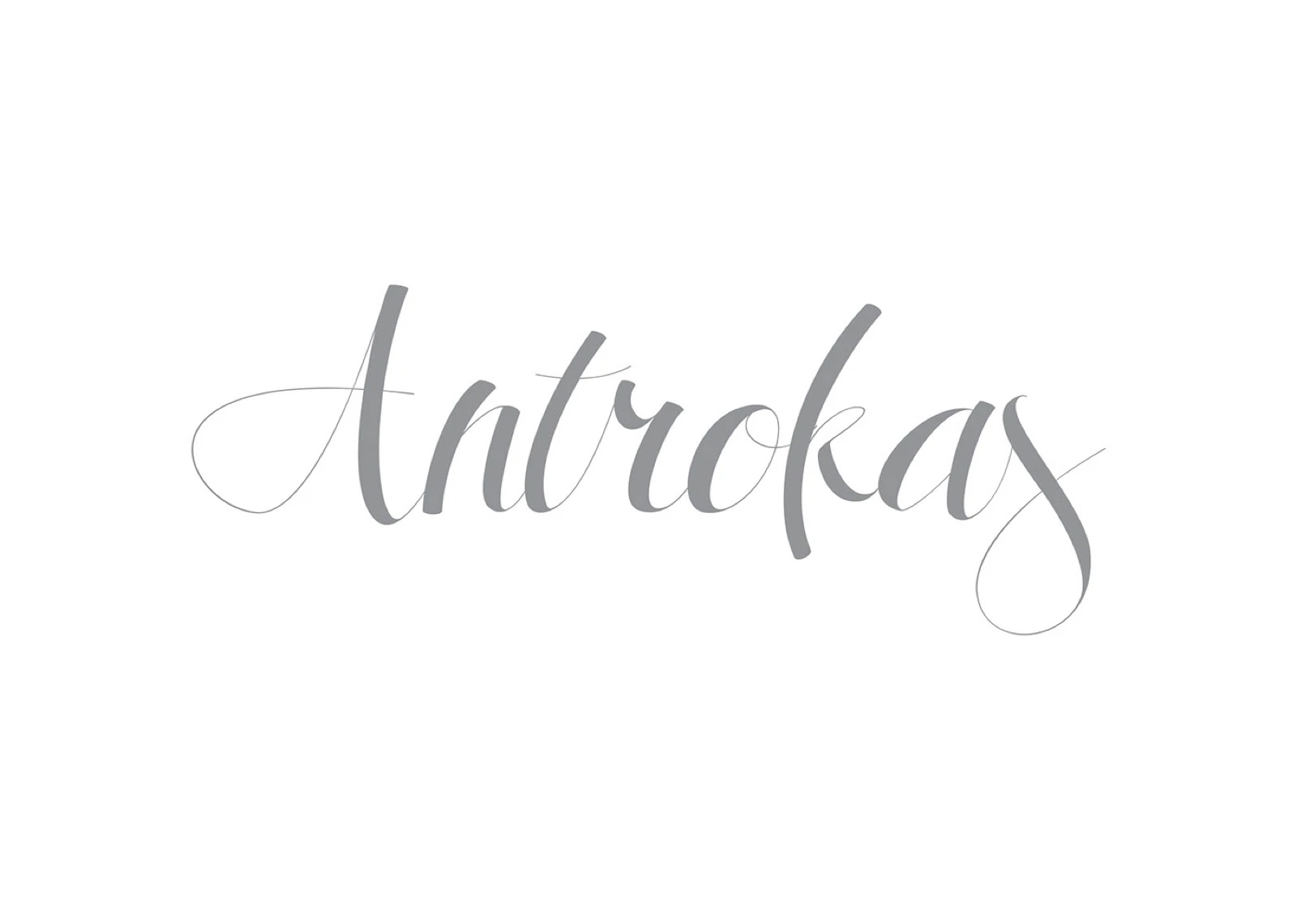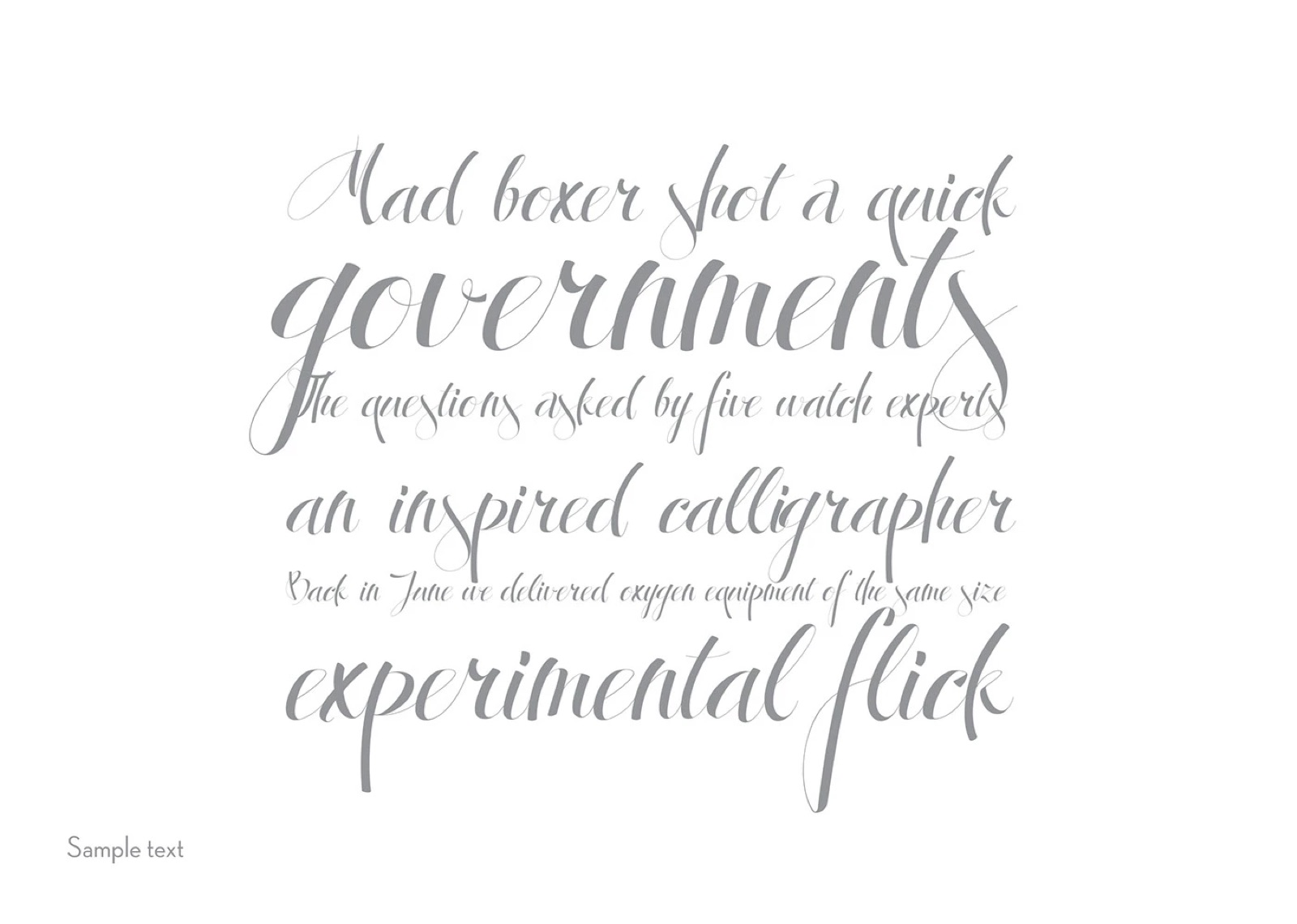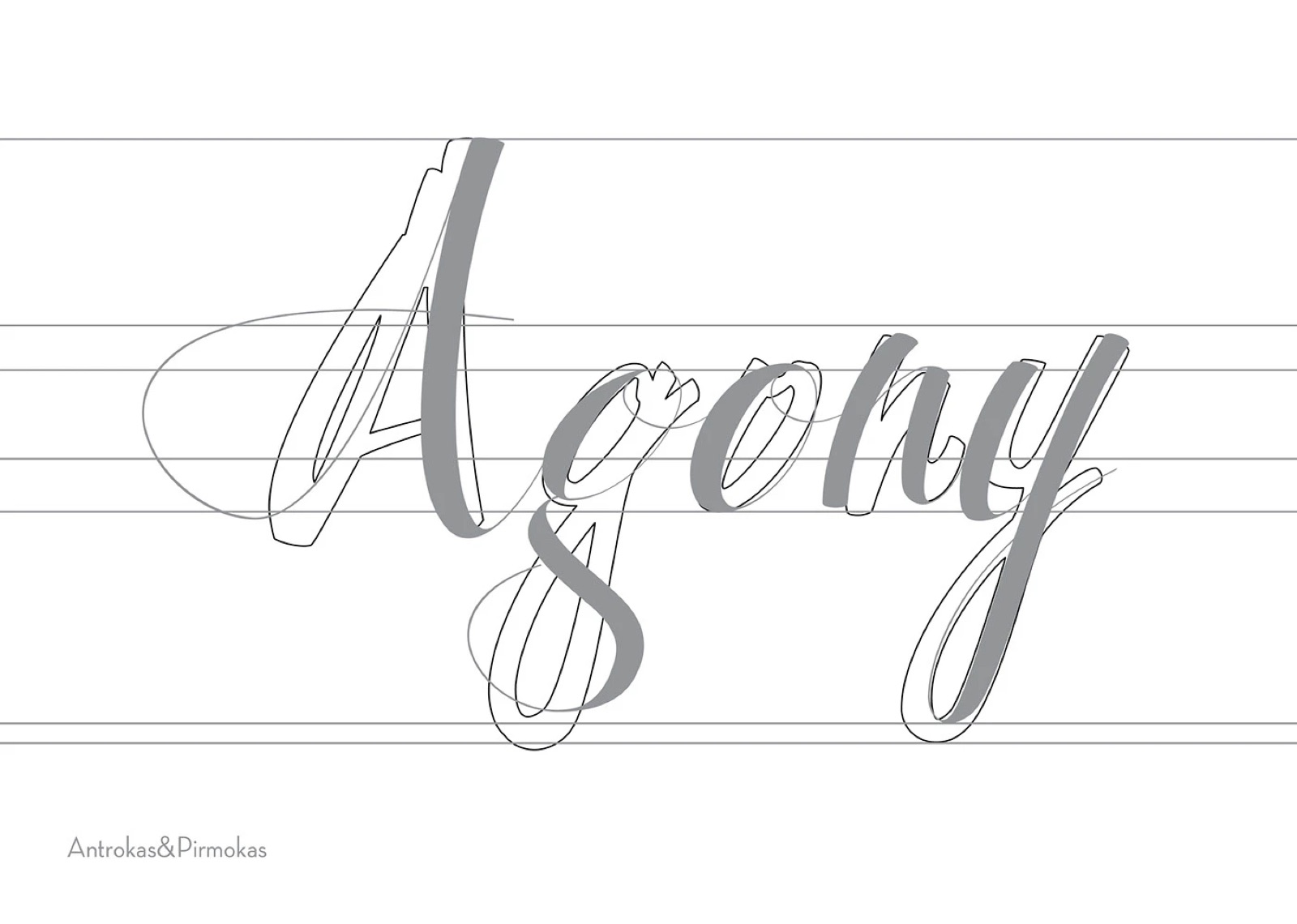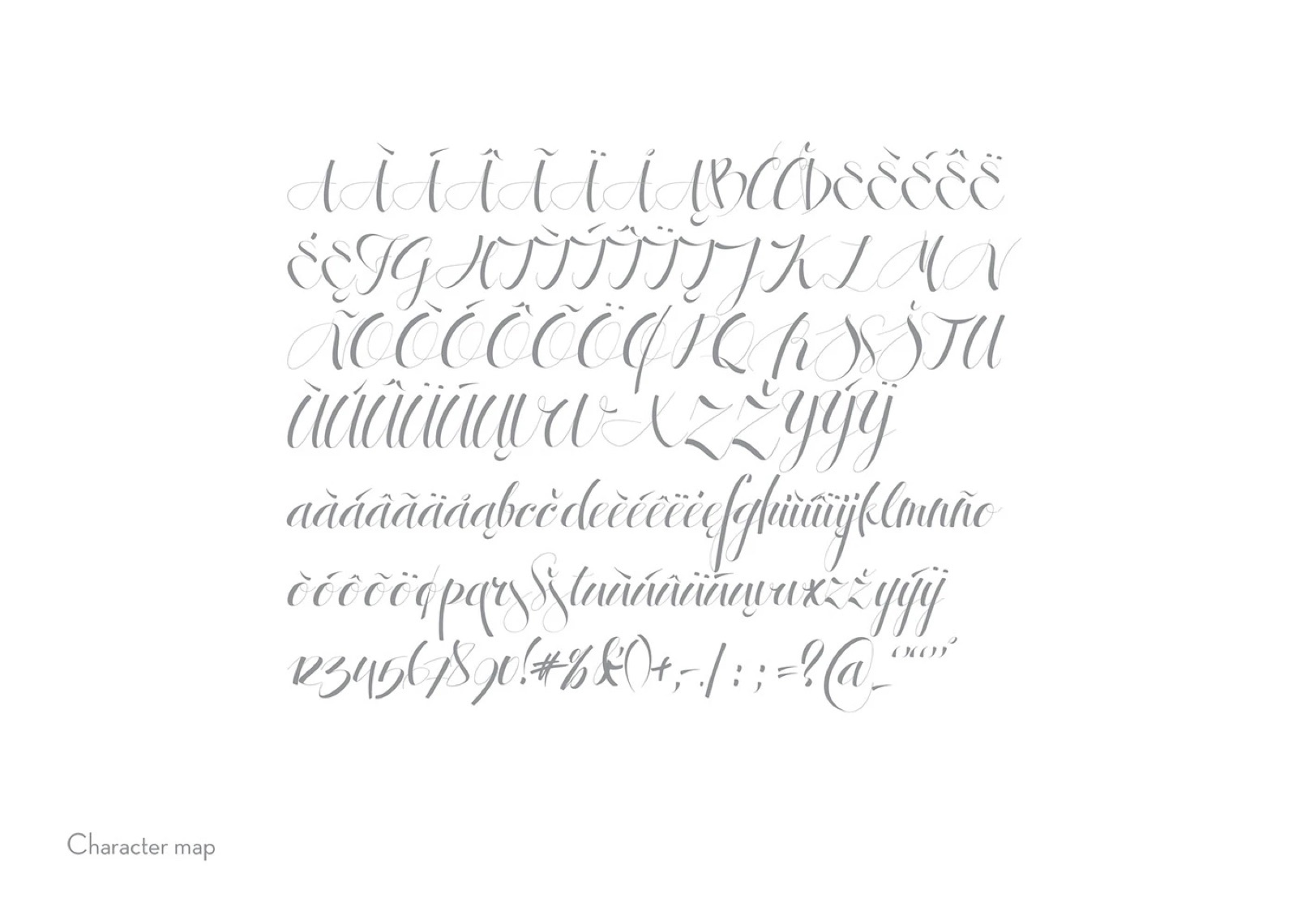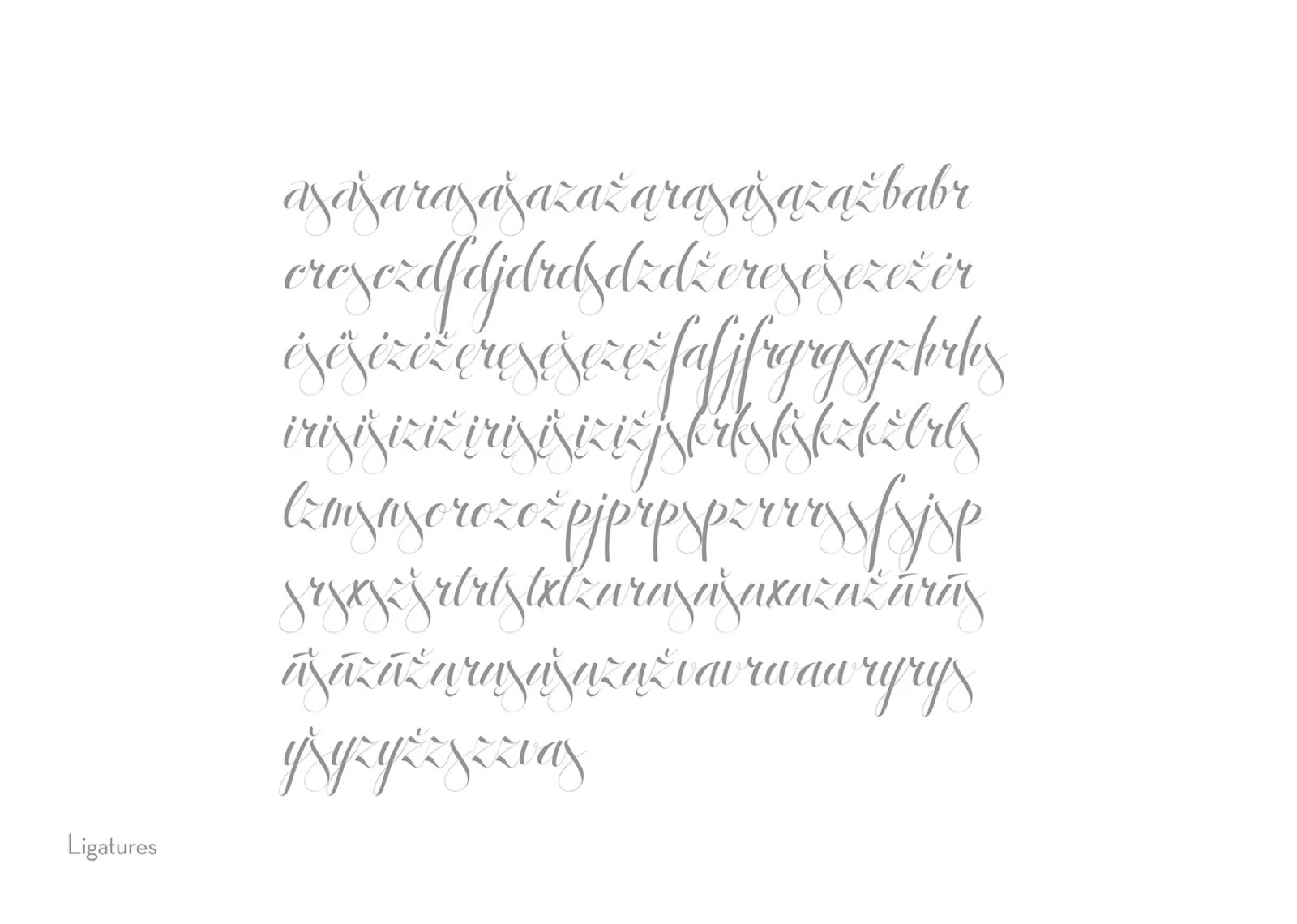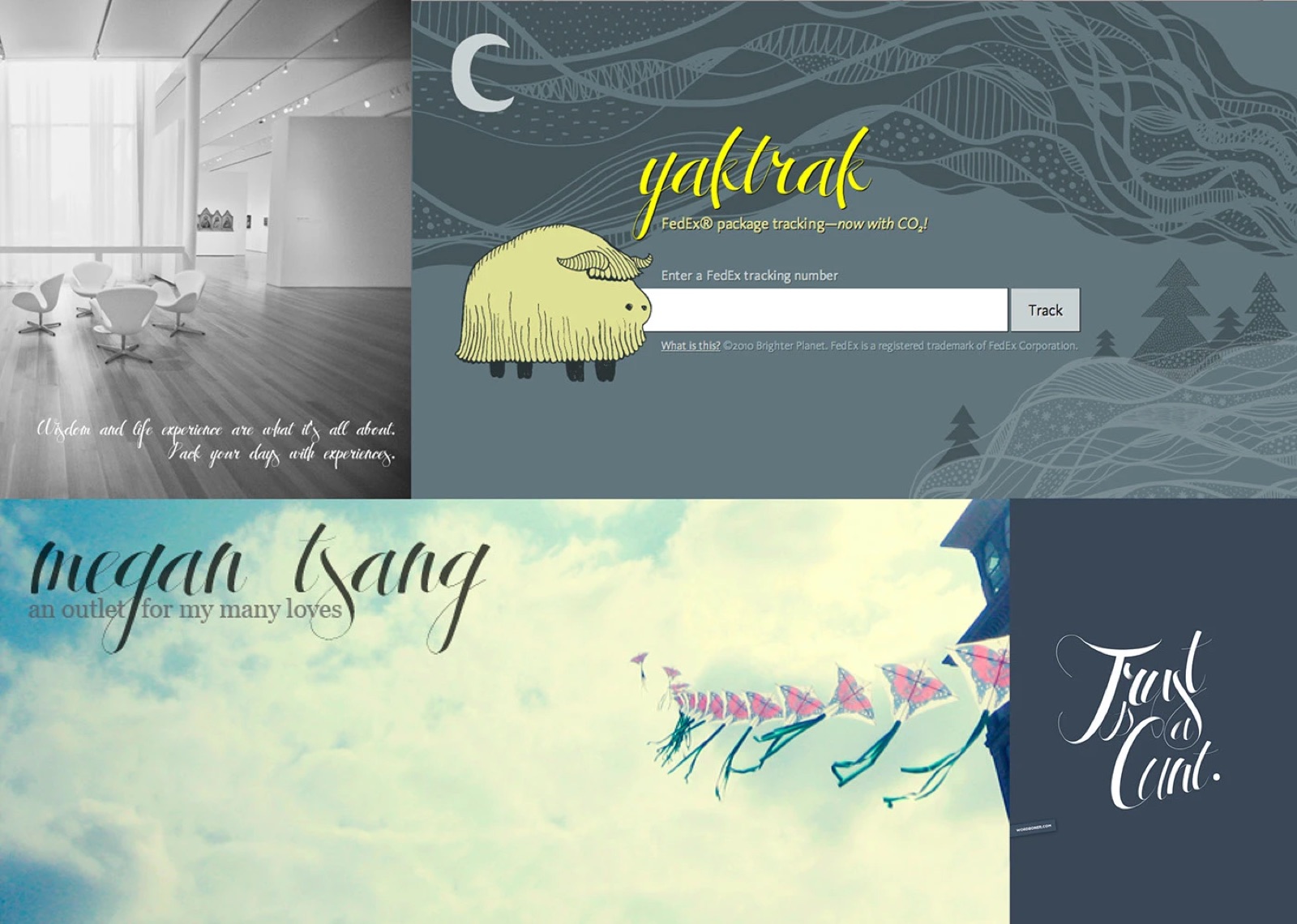
Antrokas Font
ANTROKAS (2nd grader) Typeface Antrokas was designed on the basis of my first font Pirmokas. Font Pirmokas had dark, unreadable, graceless shapes, one fick. But it was my original, unchanged or edited hand-writting style. It was done on paper with marker, later scaned and vercorised in FontLab. Therefore different from Pirmokas, Antrokas was already edited in a digital way. It’s more readable, much lighter, gracer and more elegant.Typeface Antrokas contains 282 glyphs, 124 of which are ligatures and few 2nd or 3rd letter variables. The main point in creating Antrokas, was to make live, pulsating, different in height or width of the letters font, which wouldn‘t be boring. Typeface Antrokas is most fitable to use for caligraphic works, headlines, logos and also for other any kind of works, which doesn’t require lots of text (only one or few lines). 2010 Font download: http://www.dafont.com/antrokas-demo.font